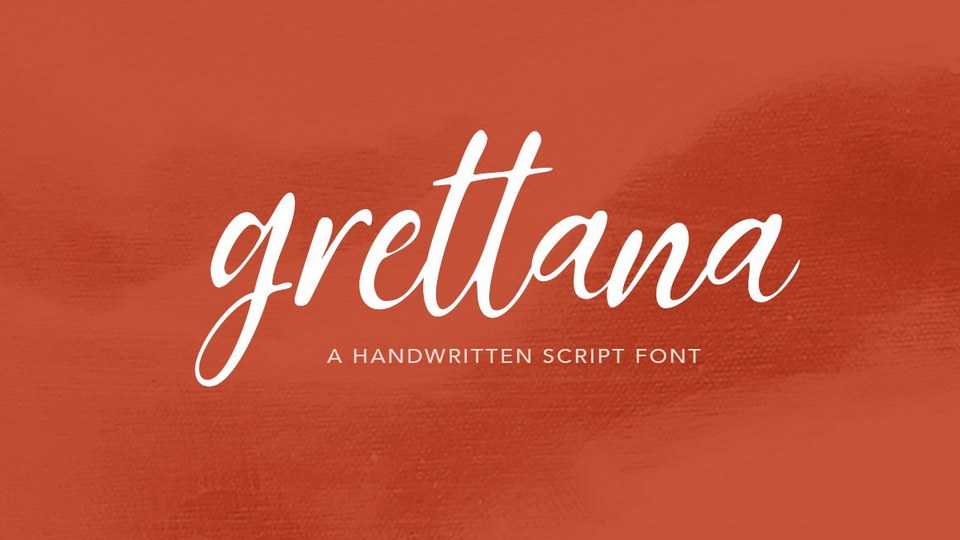
Download Grettana font, a lovely handwritten script that will add a unique touch to any crafting idea. With its contemporary charm, Grettana will be perfect for any project that needs a personal touch.
Designer: Solidtype